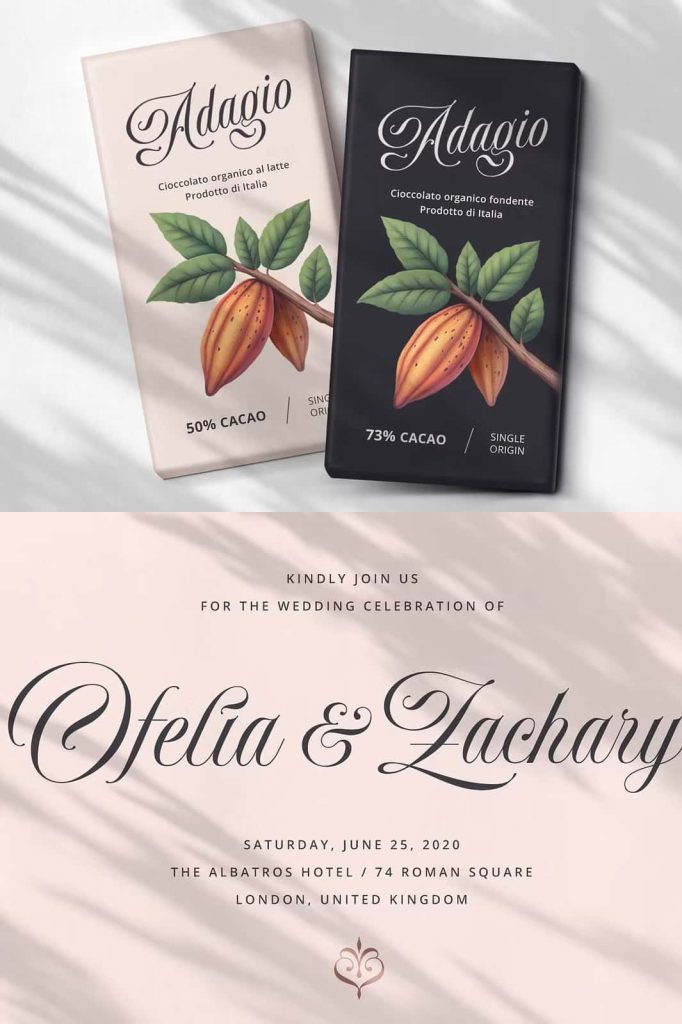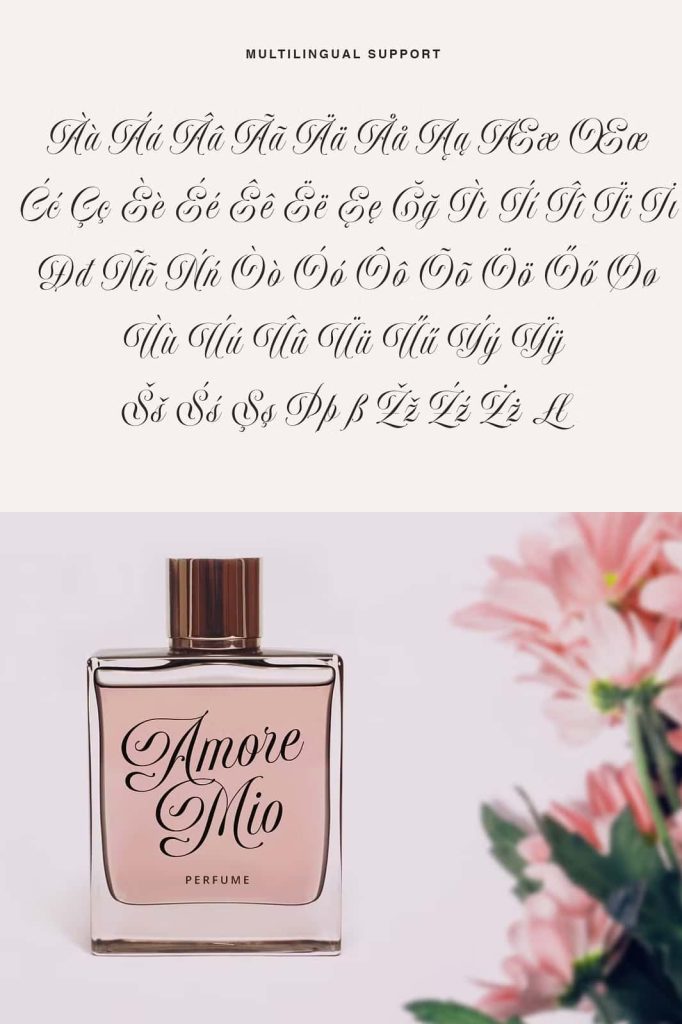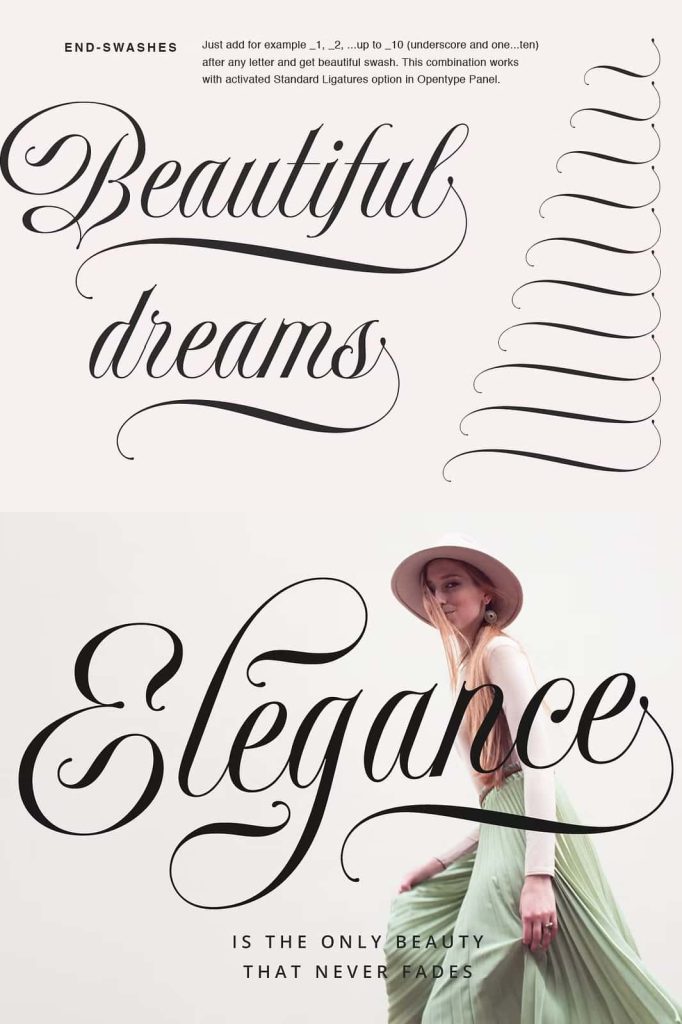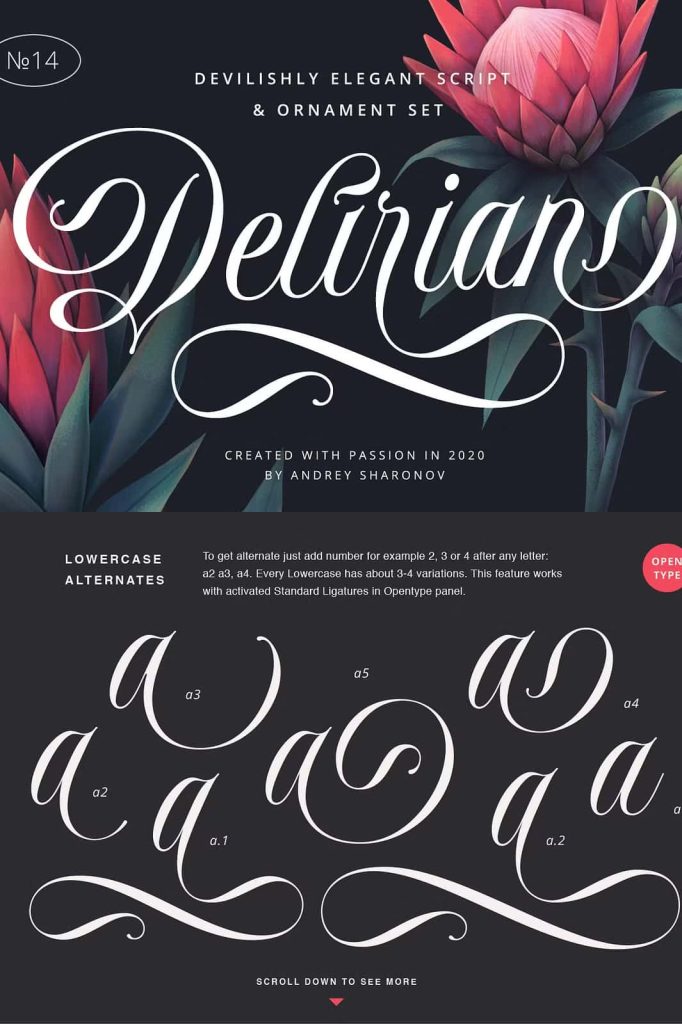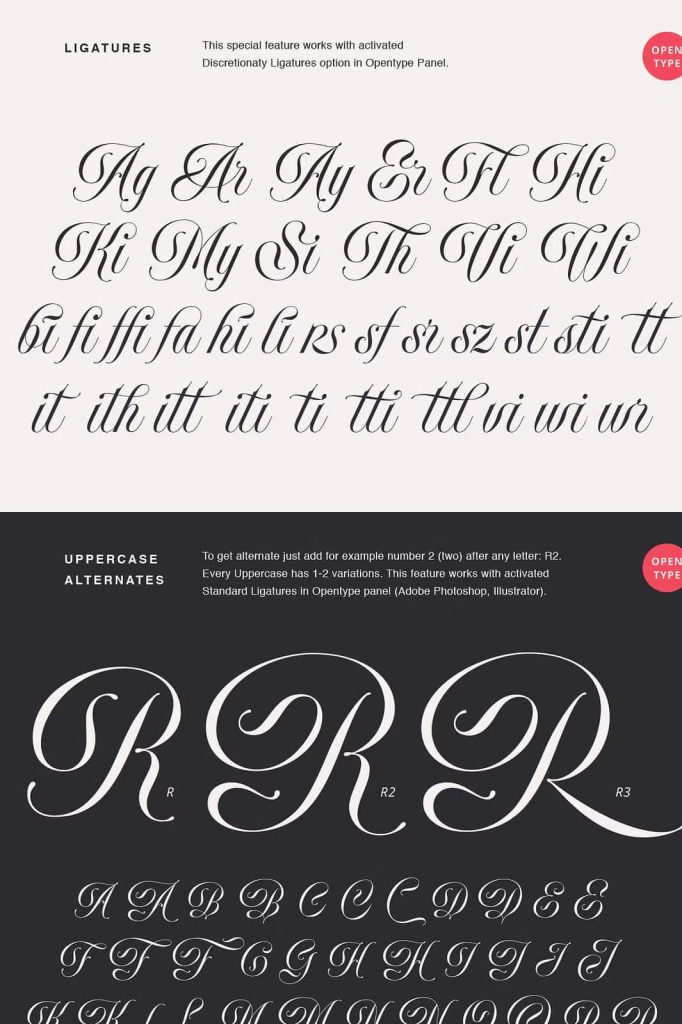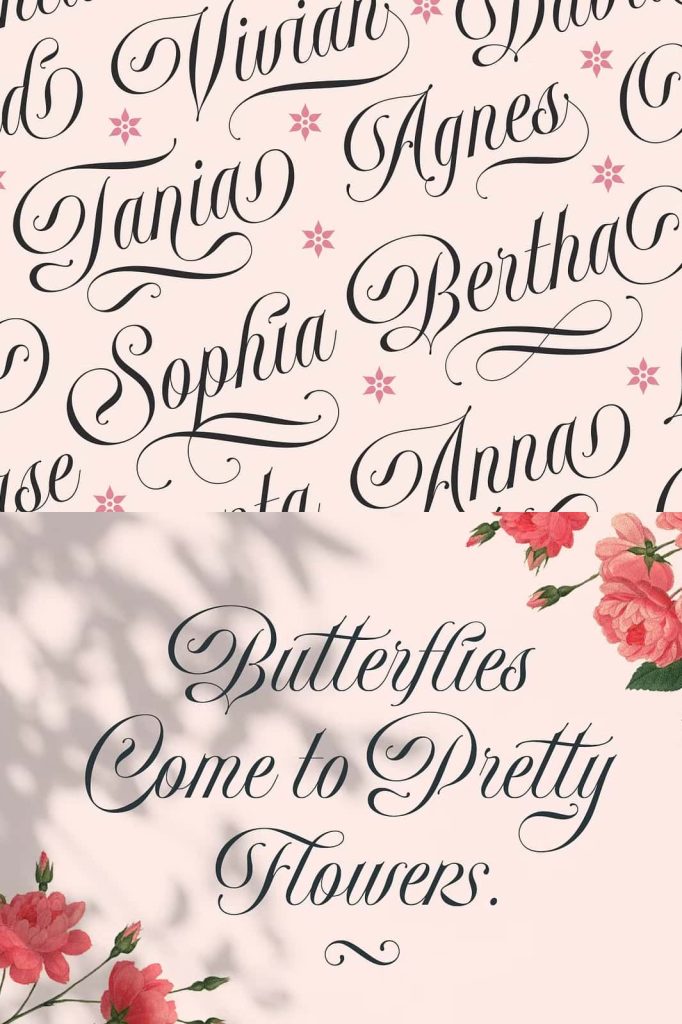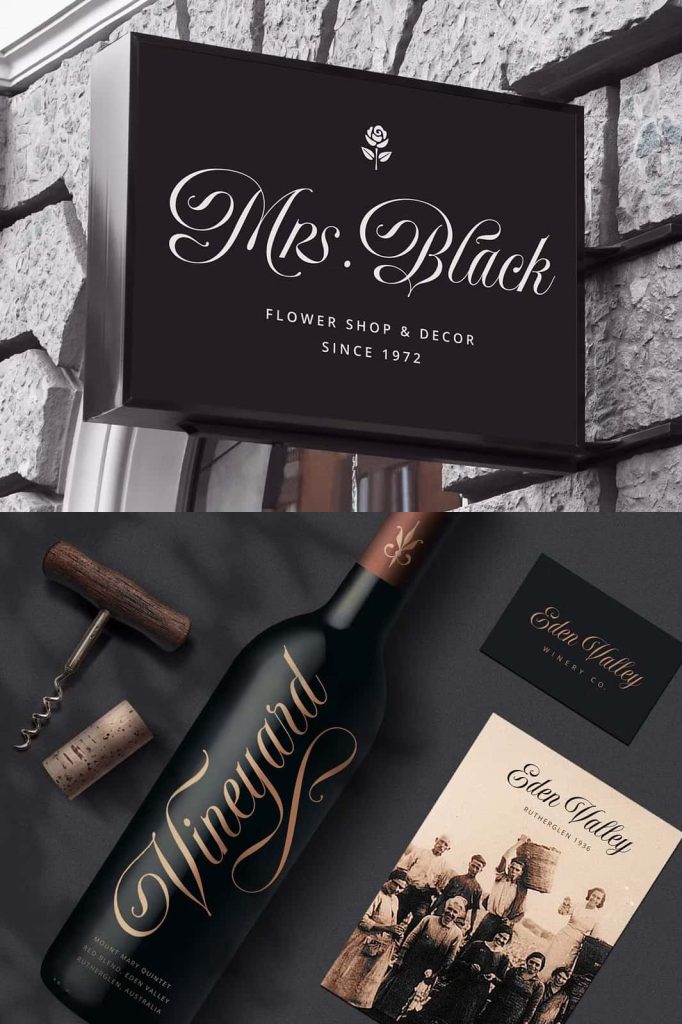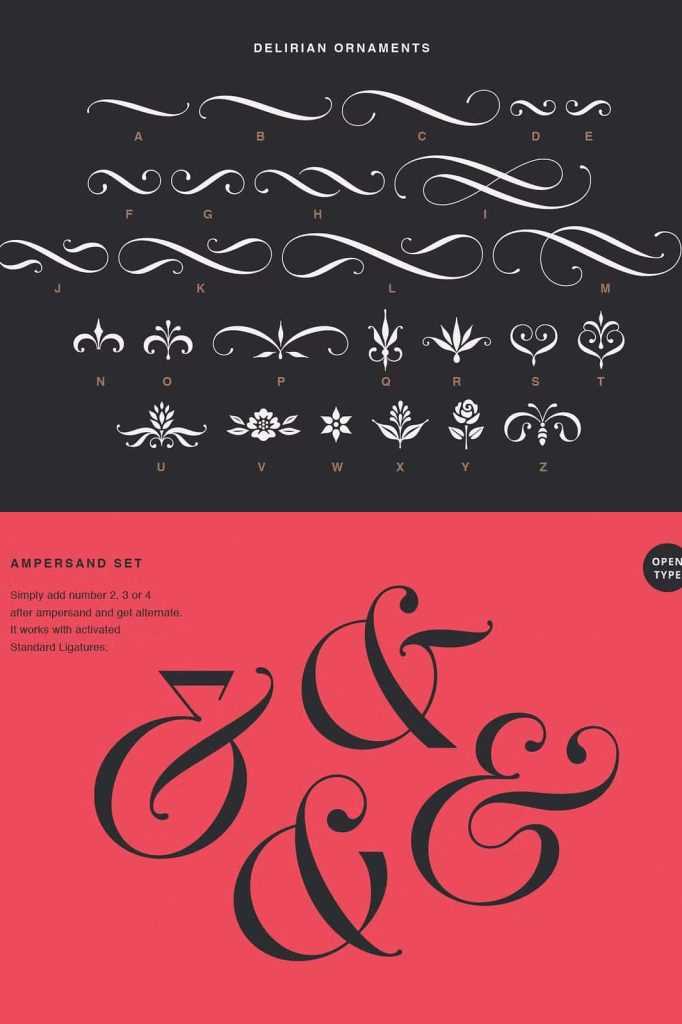
Delirian Font: An Elegant Script Typeface Inspired by Classic Calligraphy
Delirian is an elegant script typeface crafted to express refinement, balance, and modern sophistication. Inspired by timeless classic calligraphy, this font translates traditional handwritten beauty into a contemporary design language. Its smooth curves and carefully controlled strokes create a graceful flow that feels luxurious without appearing excessive. Delirian is designed for designers who want to communicate beauty, elegance, and confidence through typography.
Classic Calligraphy with a Contemporary Expression
The foundation of Delirian lies in the principles of classic calligraphy. Each letterform follows natural writing movements, resulting in fluid connections and harmonious rhythm. This calligraphic influence gives the font an authentic and timeless quality that immediately elevates any design.
At the same time, Delirian introduces a contemporary feel through clean refinement and thoughtful proportions. The font avoids overly ornate details, allowing it to feel fresh and relevant in modern design contexts. This balance makes Delirian suitable for both traditional and contemporary visual styles.
Perfectly Balanced Strokes for Versatile Use
Delirian is carefully designed to sit in the ideal middle ground between thin and thick. The strokes maintain a consistent weight that ensures clarity and readability while still delivering elegance. This balance allows the font to perform beautifully across a wide range of applications, from delicate accents to bold focal points.
Because the font is neither too light nor too heavy, it adapts easily to different backgrounds, color palettes, and layout structures. Designers can rely on Delirian to maintain its refined presence in both print and digital environments.
Designed for Luxury and Beauty-Focused Projects
Delirian excels in projects that require a sense of luxury, sophistication, and visual grace. Its elegant script style enhances designs that aim to feel premium and emotionally engaging. The font adds a polished and high-end character without overwhelming the composition.
Luxury Branding and Visual Identity
In luxury branding, Delirian delivers a strong yet graceful identity. It works exceptionally well for logos, wordmarks, and brand signatures in fashion, beauty, jewelry, and lifestyle industries. The refined letterforms help brands communicate quality, elegance, and attention to detail.
Beauty, Fashion, and Editorial Design
Delirian enhances beauty and fashion designs by adding a sense of softness and sophistication. It performs beautifully in editorial layouts, magazine covers, and promotional materials where elegance is essential. The flowing script creates visual interest while maintaining readability and structure.
Wedding, Event, and Stationery Design
For weddings and special events, Delirian offers a refined script that feels romantic and timeless. It elevates invitations, menus, place cards, and signage by adding a graceful, handwritten quality. The font supports formal and modern wedding themes alike.
Refined Details with Strong Readability
While Delirian emphasizes elegance, it also prioritizes usability. The letterforms are crafted with clear shapes and smooth transitions, ensuring that text remains legible even in longer phrases. This makes the font suitable not only for decorative accents but also for meaningful headlines and statements.
The refined details enhance visual appeal without distracting from the message. Designers can confidently use Delirian as a focal element, knowing that it will support clarity and communication.
Why Choose Delirian Script Font
Delirian is an excellent choice for designers seeking an elegant script font that blends classic inspiration with modern refinement. Its balanced strokes, graceful flow, and versatile character make it a valuable addition to any professional font collection. The font empowers designers to create work that feels luxurious, timeless, and visually captivating.
By choosing Delirian, you bring together the beauty of traditional calligraphy and the precision of contemporary design. It is a script font designed to elevate luxury branding, beauty projects, and sophisticated visual storytelling with confidence and style.